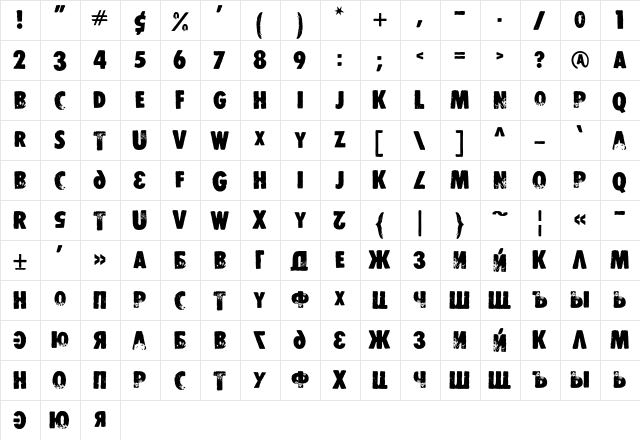
DS StamperC Regular
Design Context for DS StamperC Typeface
DS StamperC has the rough pragmatism of spray-painted stencil signage, adding a raw, street-level authenticity to designs.
Ideal for industrial branding, streetwear, military-adjacent aesthetics, and urban signage projects.
Pro Tip: Pair DS StamperC with raw, utilitarian design elements — exposed concrete textures, flat colour, and minimal ornamentation suit it well.